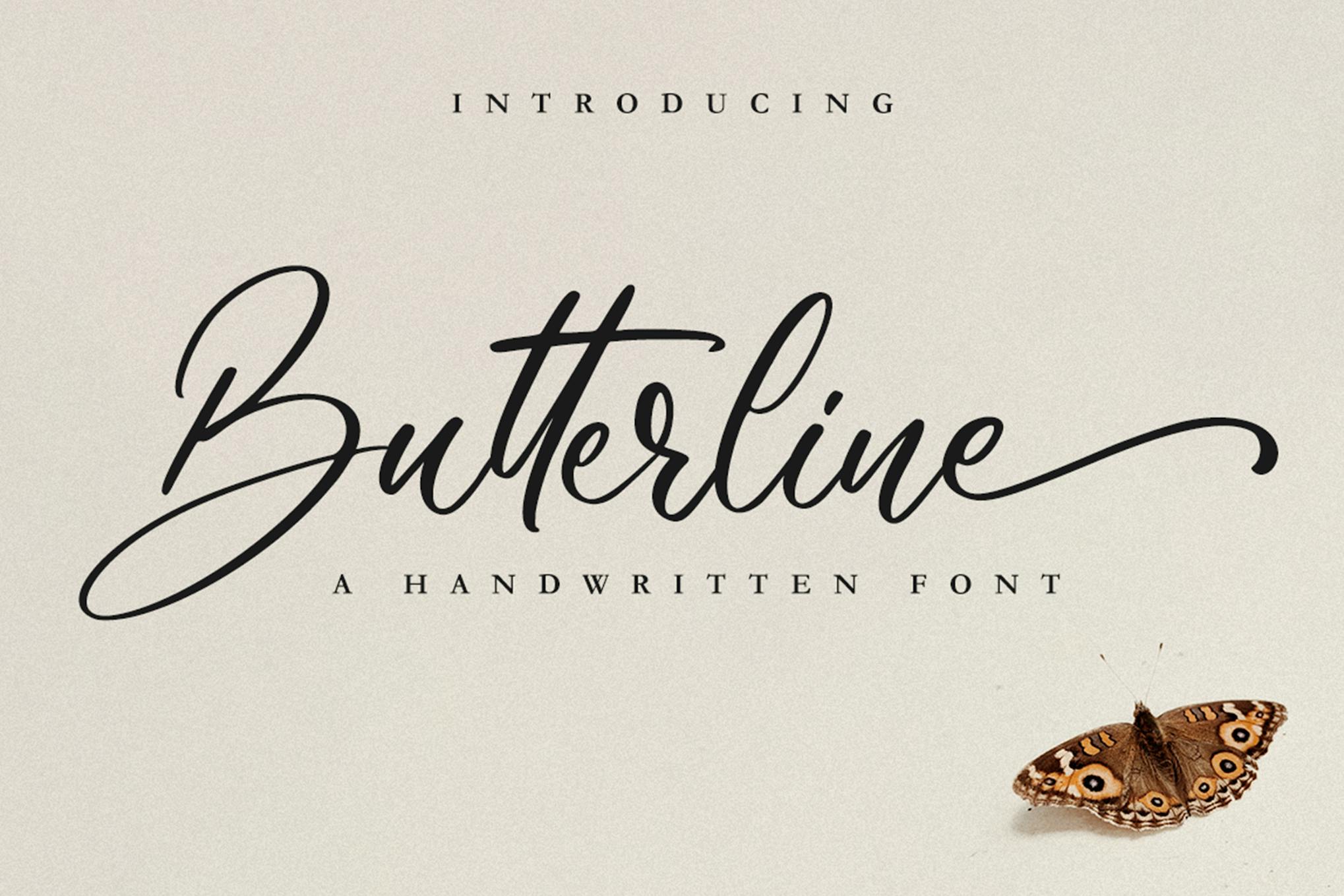
Butterline - Wedding Font
The Butterline - Wedding Font excels in delicate design applications including graceful wedding invitations, delicate bridal branding, gentle ceremony logos, soft product packaging, delicate business cards, graceful portfolios, gentle greeting cards, soft social media graphics, delicate event signage, and graceful marketing materials. Its delicate script style makes it perfect for projects requiring gentle elegance that communicates softness and establishes delicate brand positioning with audiences seeking graceful wedding experiences and gentle sophistication.
What makes the Butterline - Wedding Font genuinely exciting is its exceptional ability to capture the delicate beauty and gentle elegance of graceful weddings through softly crafted letterforms. The font features flowing, delicate strokes with gentle flourishes and soft proportions that create a distinctly graceful appearance. Each character displays remarkable attention to delicate detail with gentle curves, soft connections, and delicate spacing that give text a beautifully graceful, hand-lettered quality. The font's delicate character and gentle rhythm create an atmosphere of soft elegance while maintaining graceful sophistication and wedding authenticity.
The Butterline - Wedding Font family typically includes regular weight with extensive character coverage, featuring uppercase and lowercase letters, numerals, punctuation marks, and international characters. The typeface often incorporates stylistic alternates, contextual ligatures, and delicate swashes that enhance its signature gentleness. These additional elements provide designers with creative flexibility to customize text appearance and achieve more natural-looking gentle handwriting that reflects the font's delicate and soft character.
This delicate signature font distinguishes itself through its remarkable balance of gentle charm and sophisticated elegance. Unlike harsh or heavy fonts that lack delicate appeal, Butterline - Wedding Font embraces the power of gentle design to create delicate connections with graceful wedding audiences. The font's delicate character makes it essential for gentle wedding planners, delicate brands, and graceful celebration businesses where creating delicate wedding experiences and gentle memories is fundamental to success in graceful wedding markets.